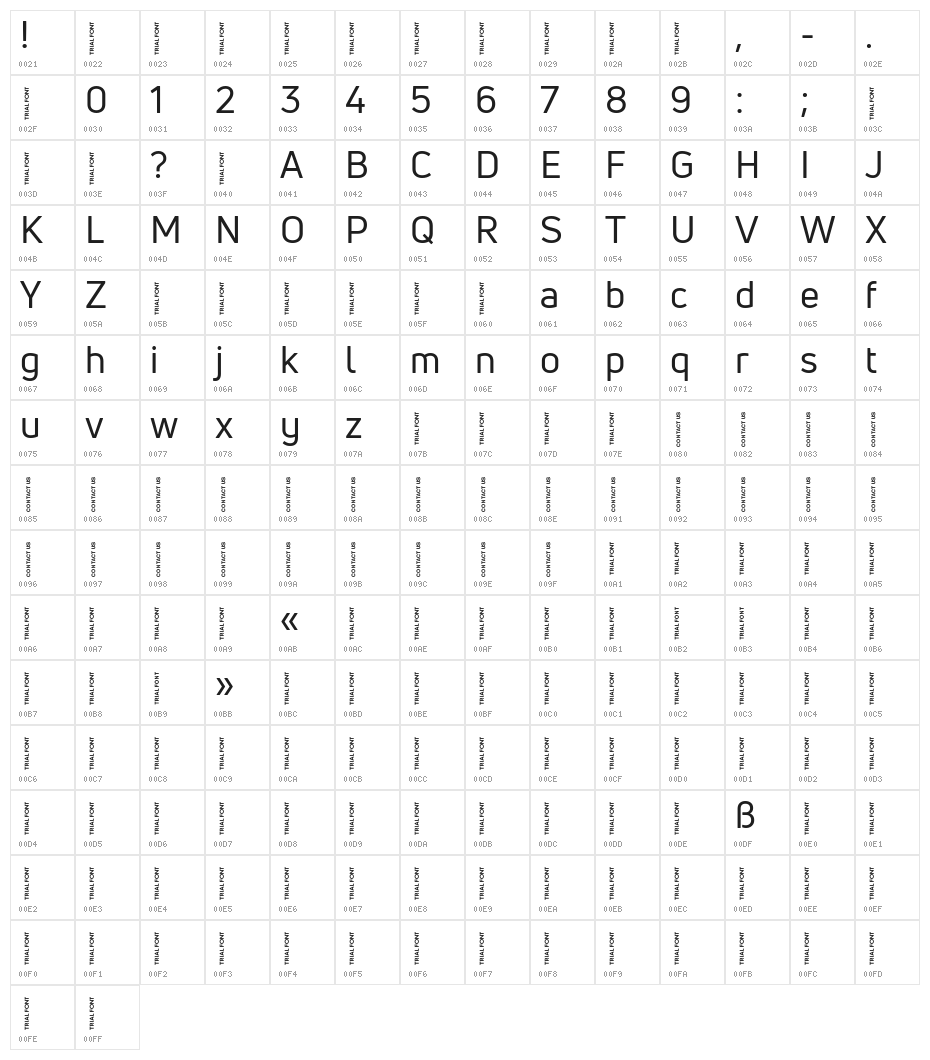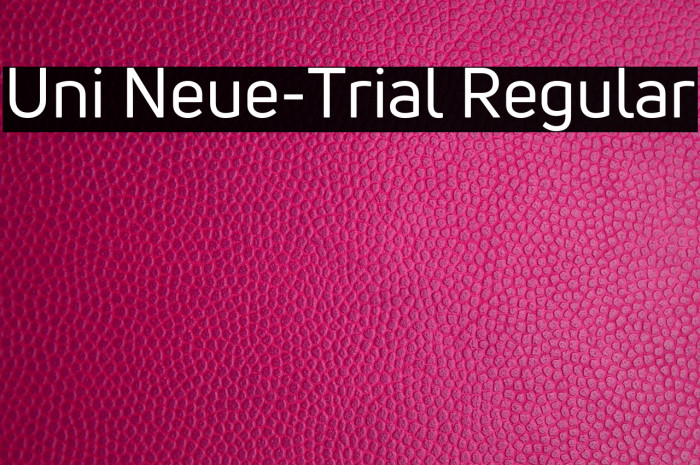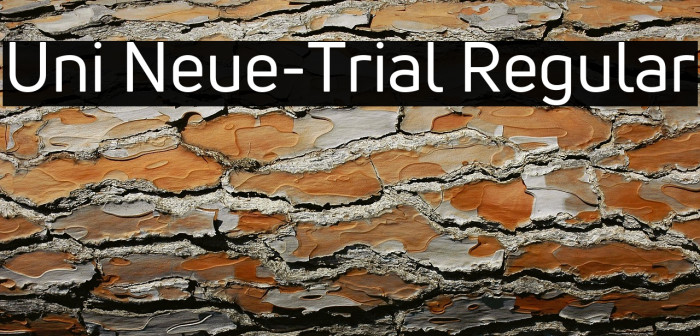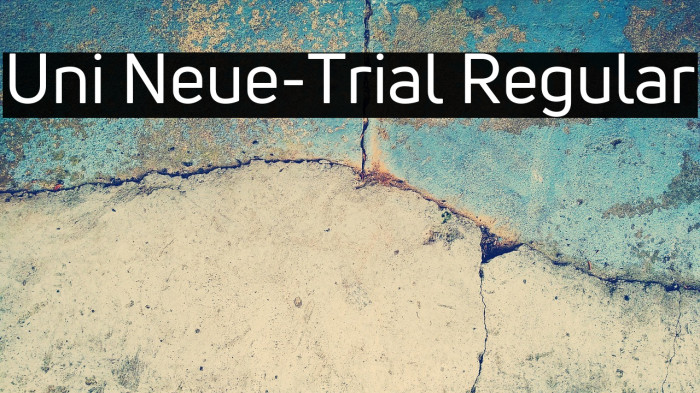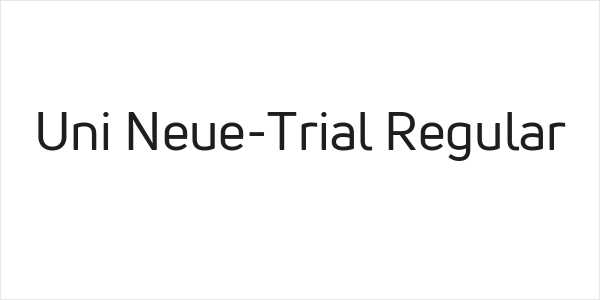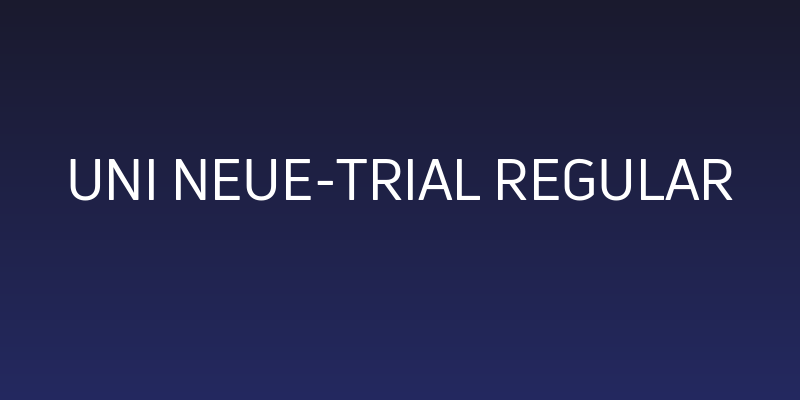
Uni Neue-Trial Regular Font
Uni Neue-Trial Regular Description
This font features a clean and modern sans-serif design with a geometric structure. The characters are well-balanced with a uniform stroke width, providing a contemporary and professional appearance. The uppercase and lowercase letters maintain a consistent style, enhancing readability. The numerals are clear and distinct, making them suitable for various applications. Special characters are included, ensuring versatility in design projects. The overall aesthetic is sleek and minimalistic, making it ideal for digital and print media.
| Proposed Projects | Ideal for branding, web design, advertising, and editorial layouts. |